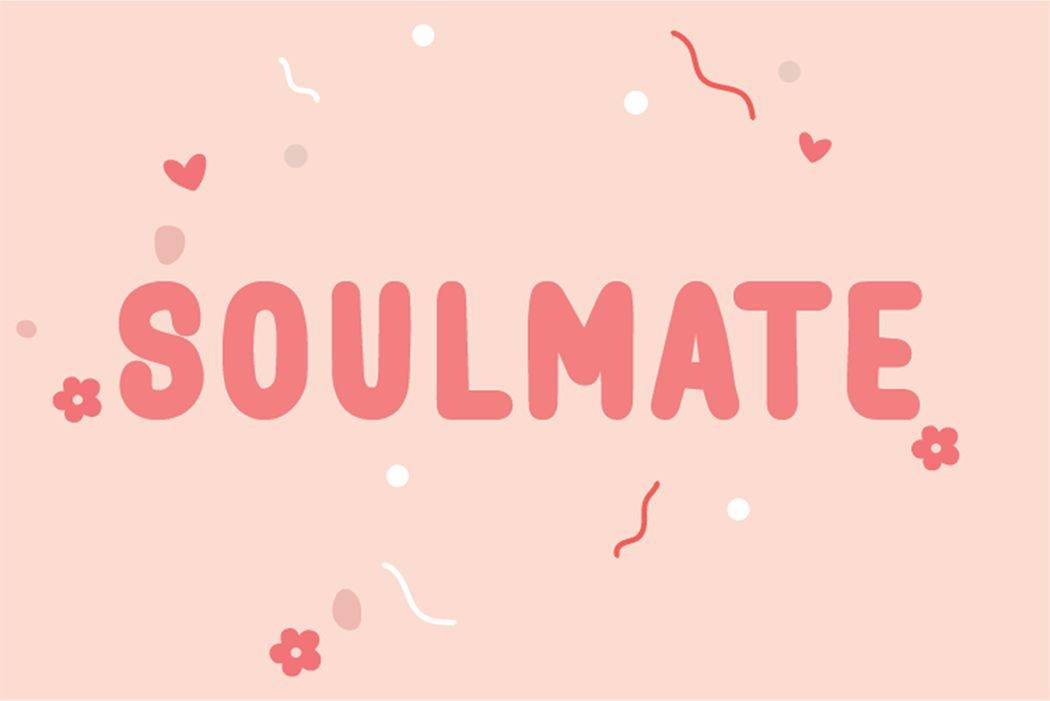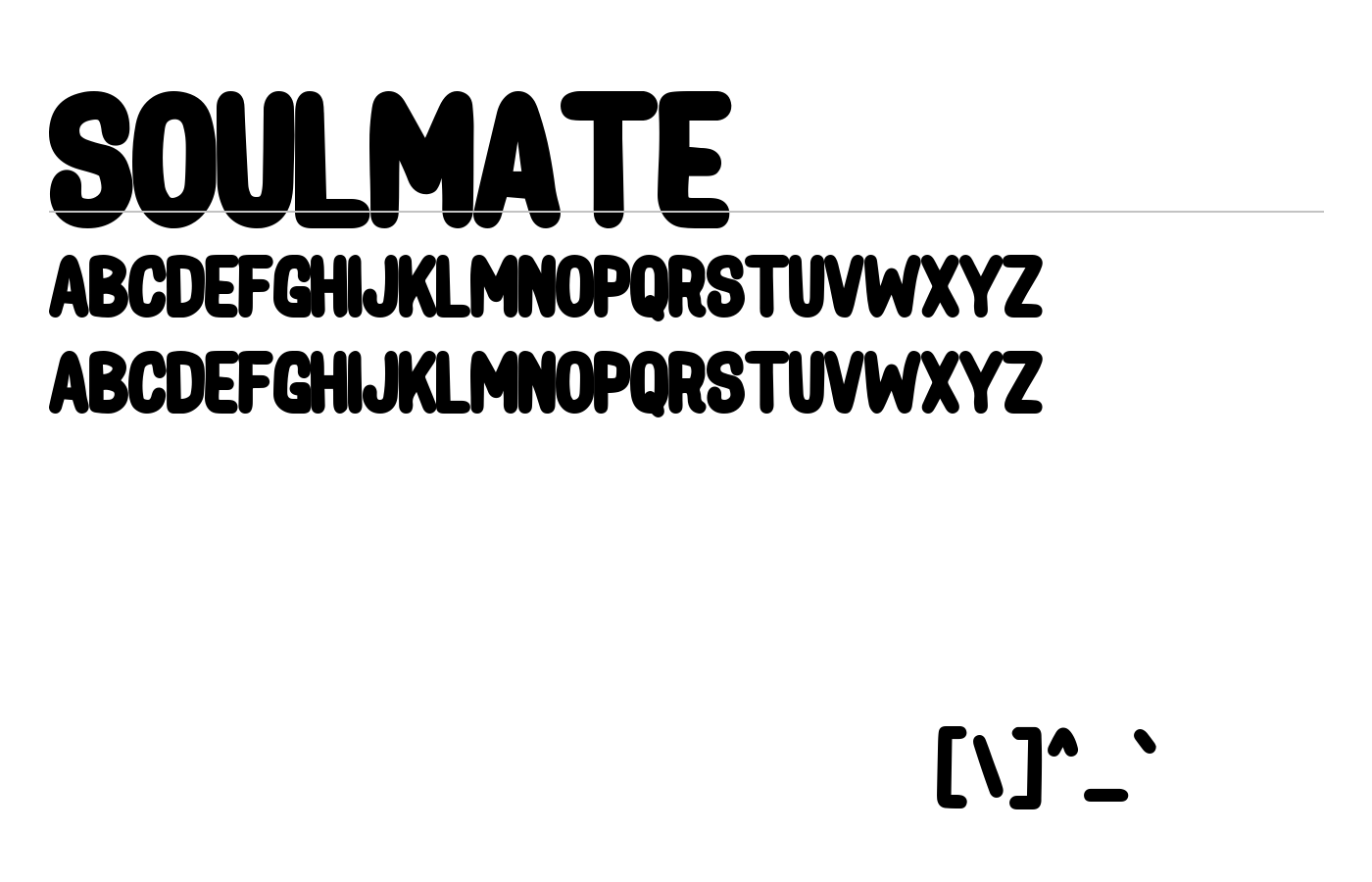
Soulmate Font is a bold, rounded sans serif typeface that exudes a playful and friendly vibe. Its thick, smooth strokes and uniform width give it a casual and approachable feel, making it ideal for fun branding, children's materials, and creative headlines. This font works well in contexts where warmth and cheerfulness are key, bringing energy and charm to logos, posters, and informal designs.
Soulmate Font
About Soulmate Font